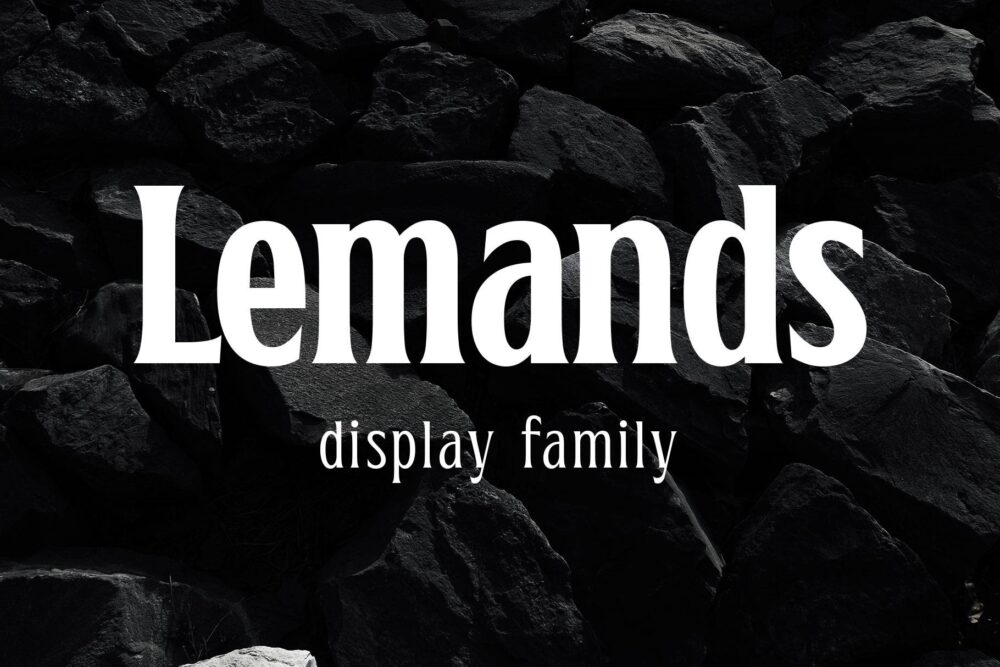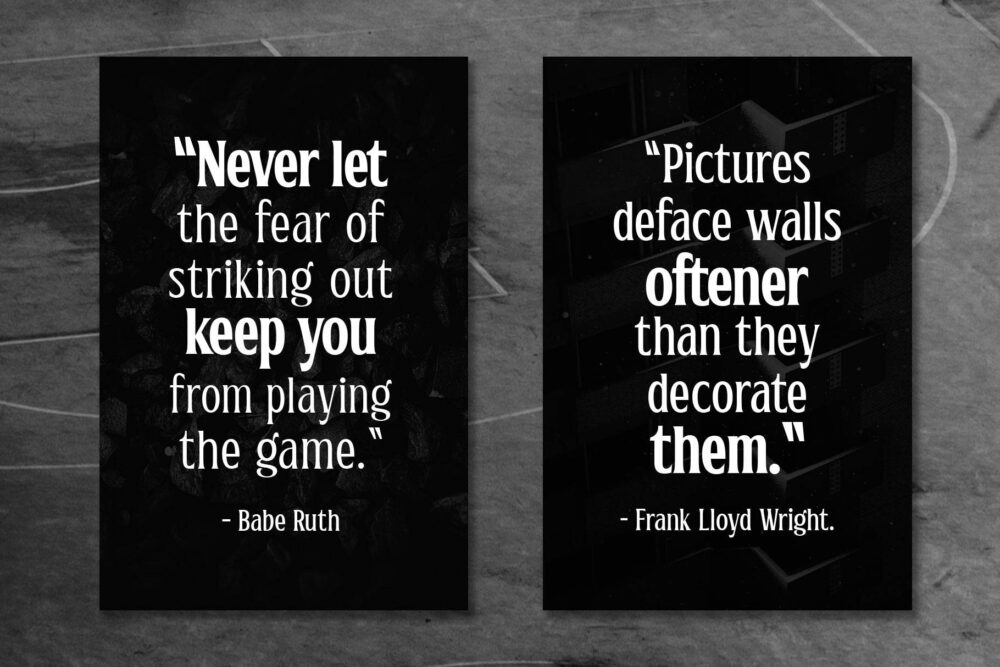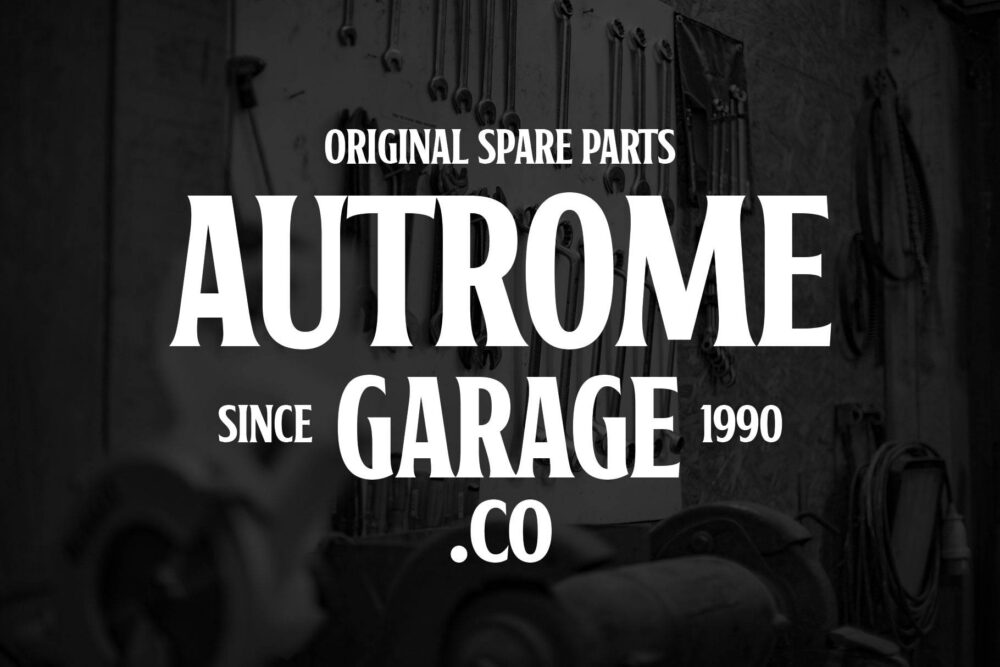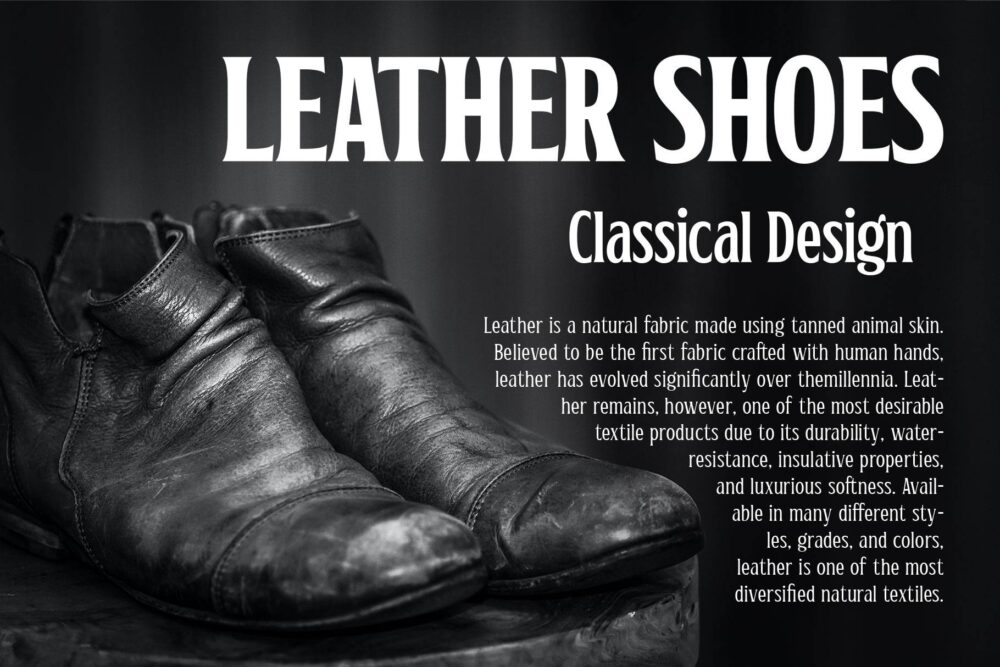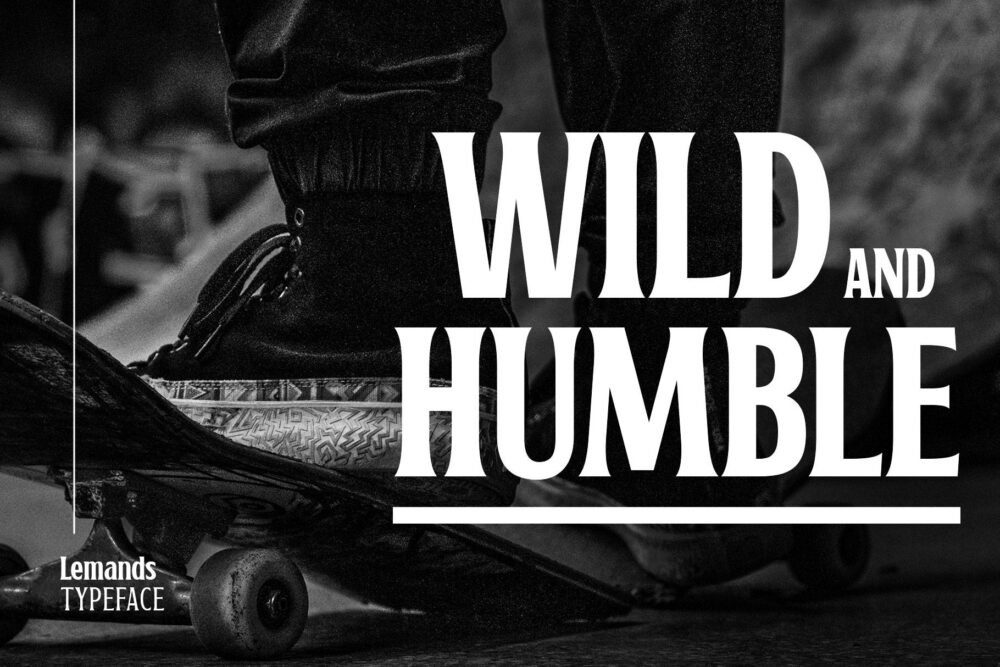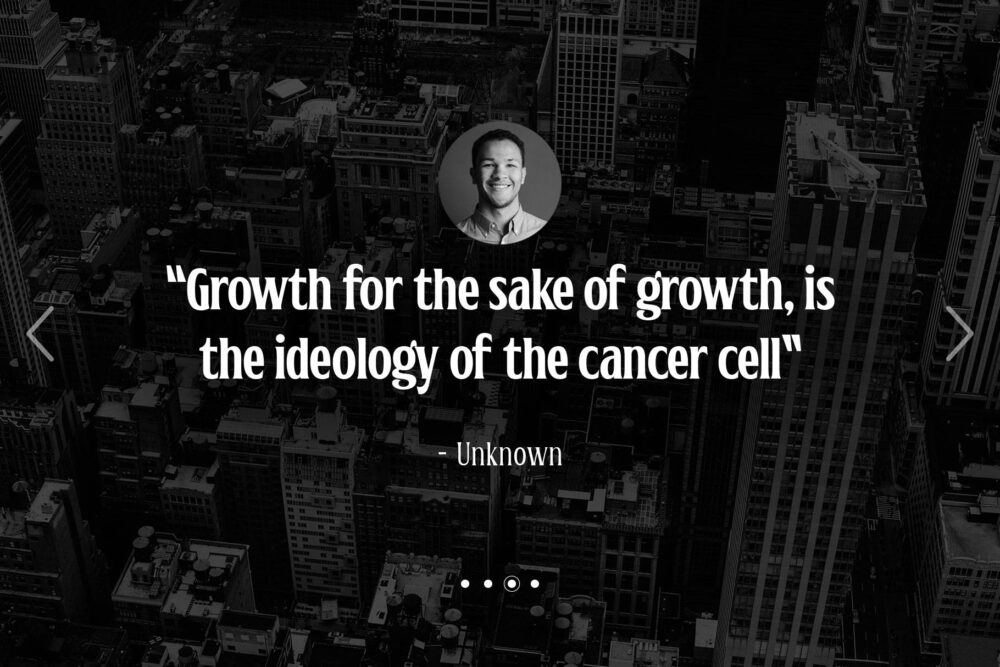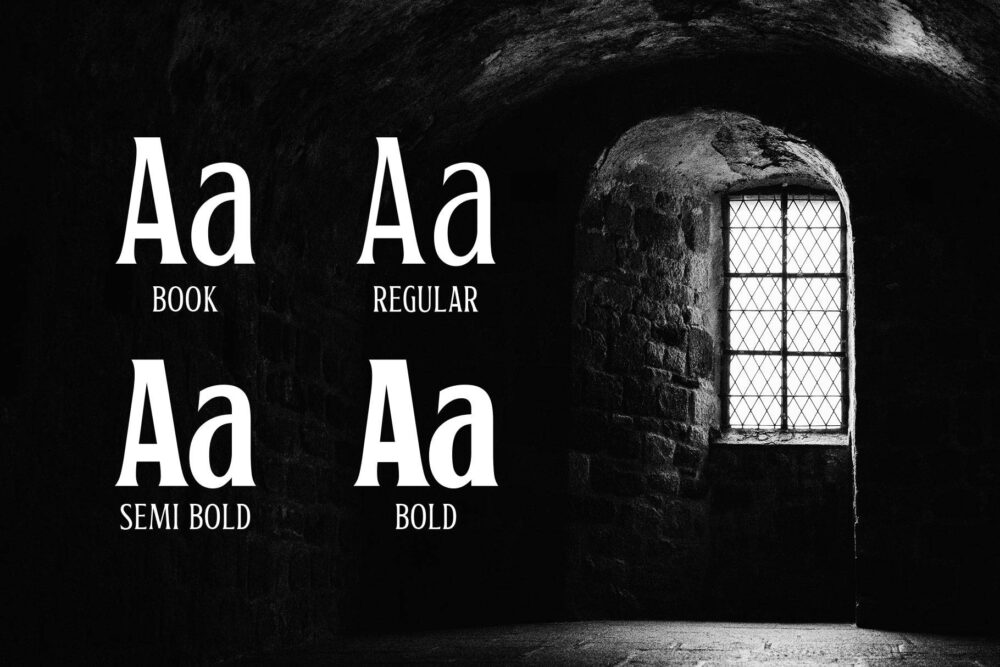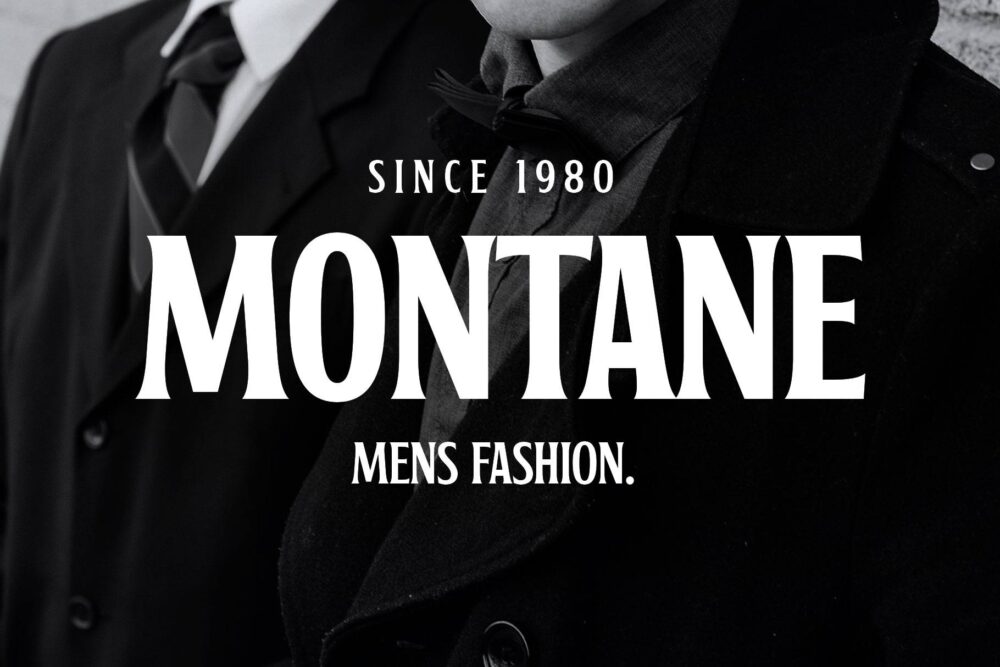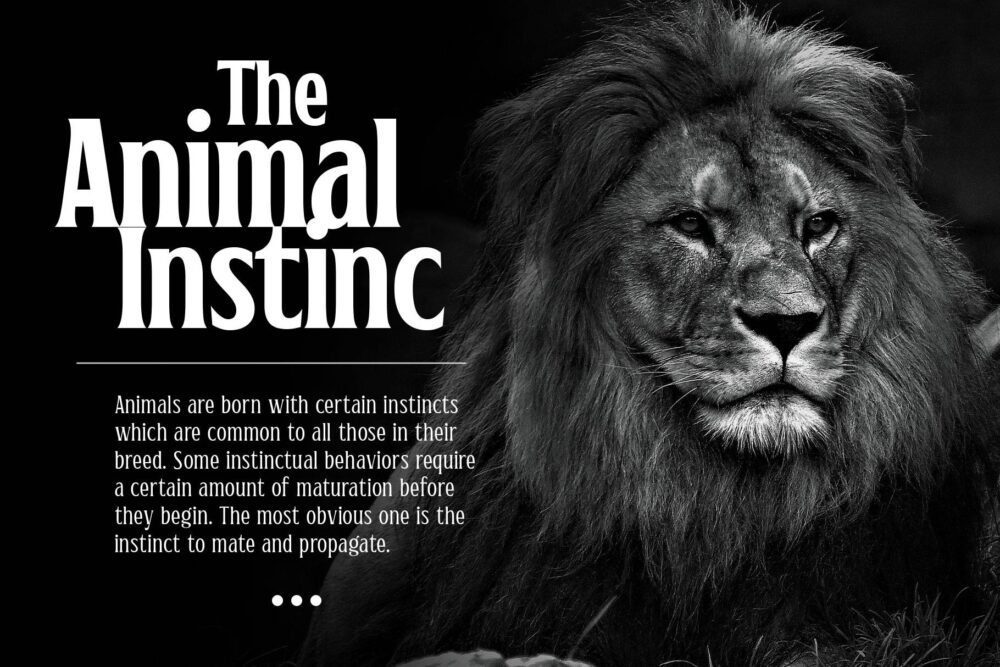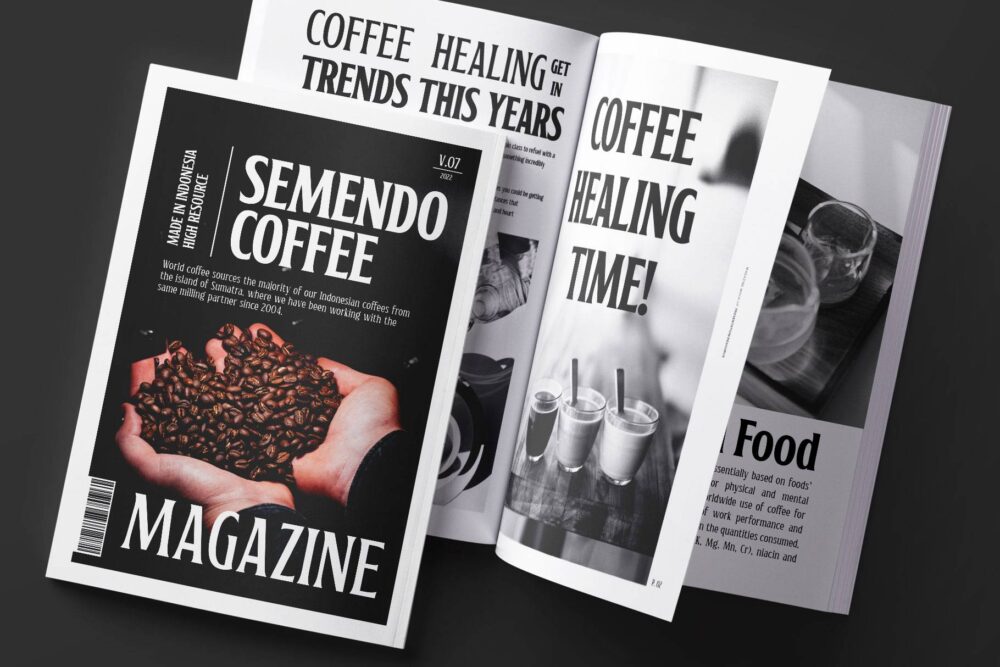
Lemands - Bold
Lemands - Semibold
Lemands - Book
Lemands - Regular
Lemands is a strong-sharp serif font in condensed height. Designed with medium contrast and inspired by the modern-classic typography and the High Octane Rock genre. The serif is quietly sharp and has assertive lines and curves, giving the letterform looks solid and strong as a display font.
Lemands is a display typeface that is perfect for many purposes such as a headline, sub-headline, logo, and short body text for magazines, books, fashion, quotes, youth t-shirt, signboards, logos, and many more!
Available in 4 weights: Regular – Book – SemiBold – Bold. A great choice for a brave concept!
• Uppercase
• Lowercase
• Numbers
• Symbols
• Punctuation
• Standard ligatures
• Accents : ÀÁÂÃÄÅÆÇÈÉÊËÌÍÎÏÐÑÒÓÔÕÖØÙÚÛÜÝÞßàáâãäåçèéêëìíîïñòóôõöøùúûüýþÿ ĀāĂ㥹ĆćĈĉĊċČčĎďĐđĒēĔĕĖėĘęĚěĜĝĞğĠġĤĥĦħĨĩĪīĮįİıIJijĴĵĹ弾ĿŀŁłŃńŇňŌōŎŏŐőŔŕŘř ŚśŜŝŞşŠšŤťŦŧŨũŪūŬŭŮůŰűŲųŴŵŶŷŸŹźŻżŽžẀẁẂẃẄẅ